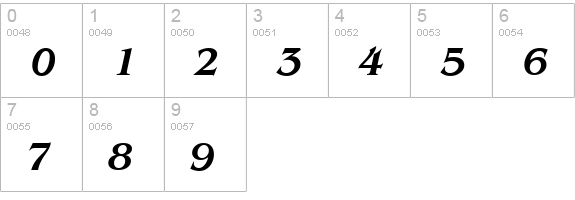
Benjamin-MediumItalic Font Details
Introducing Benjamin-MediumItalic font, a sophisticated and elegant typeface designed to bring a touch of class to your projects. This exquisite font features a perfect balance between modernity and tradition, making it ideal for a variety of design applications. The subtle curves and stylish serifs of Benjamin-MediumItalic font add a unique flair to any text, creating a sense of refinement and elegance. And the best part? Benjamin-MediumItalic font is absolutely free to download at FontsMarket.com! This means you can elevate your designs with this premium-quality typeface without breaking the bank. Whether you're working on branding materials, invitations, or editorial designs, Benjamin-MediumItalic font is sure to make a lasting impression. Don't miss out on the opportunity to enhance your projects with the timeless beauty of Benjamin-MediumItalic font. Download it for free today at FontsMarket.com and unlock a world of creative possibilities!